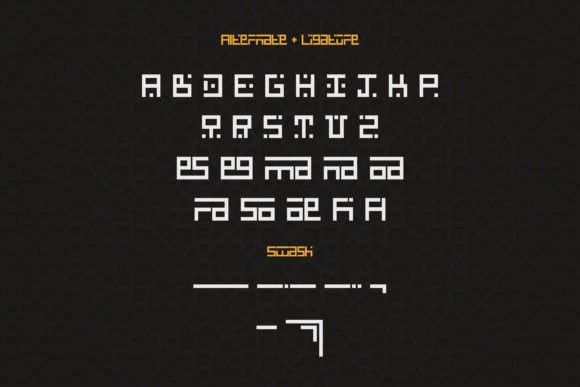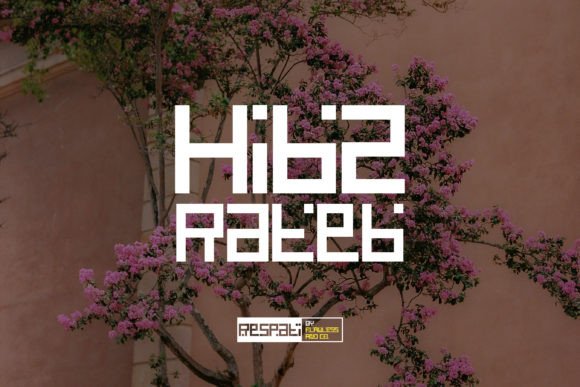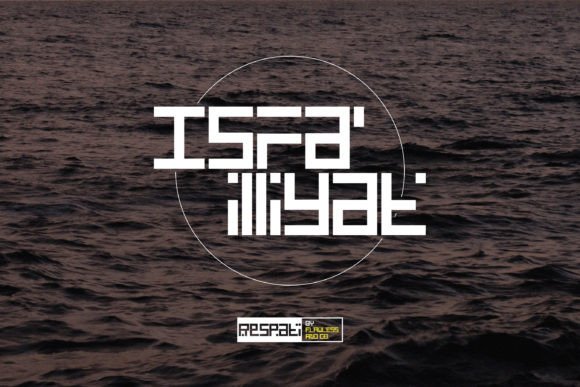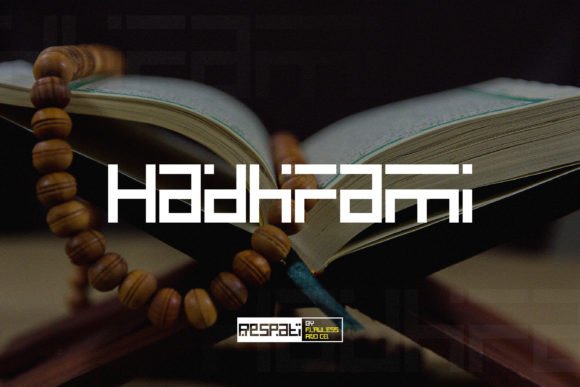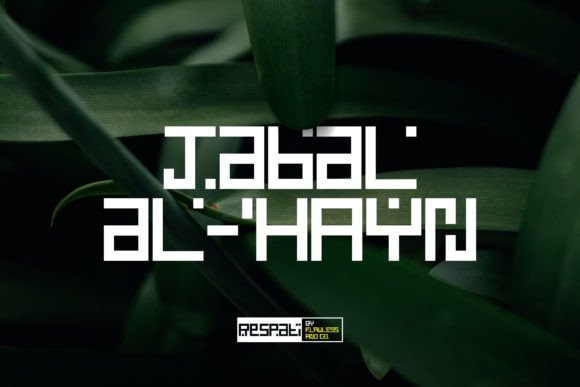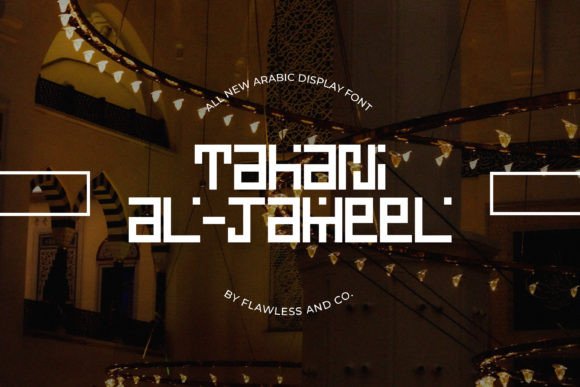
Introduction to Respati Font
Respati is an exquisite and captivating typeface that beautifully merges the timeless elegance of Kufic calligraphy with a modern twist.
With its distinct and sophisticated design, Respati is the perfect choice for adding a touch of refinement to your projects .